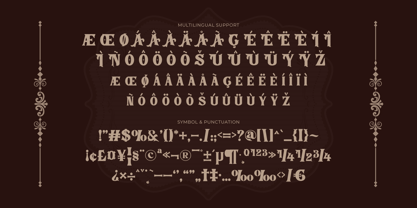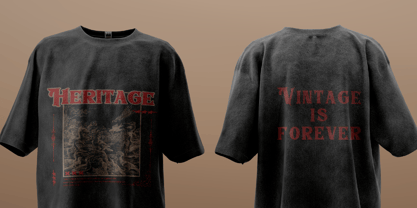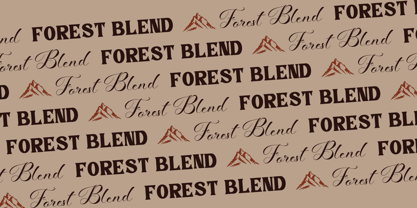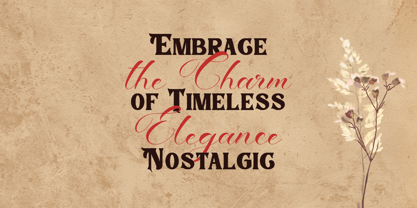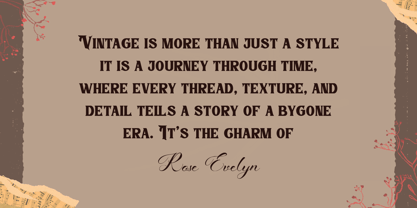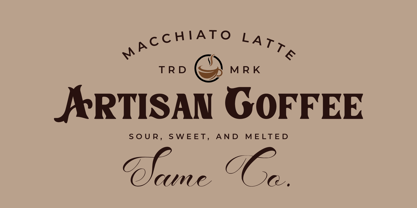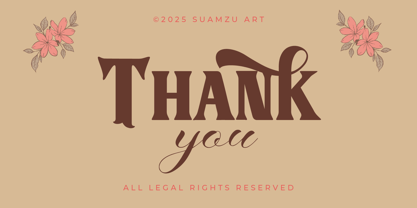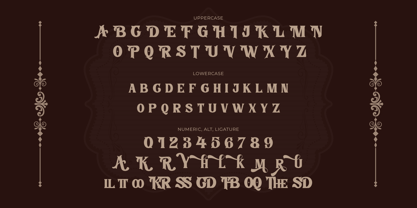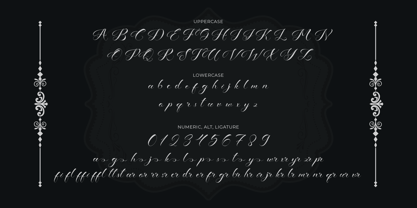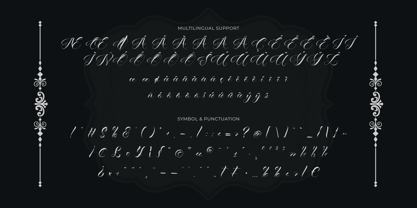
Kobler Sienna
by Suamzu Art
The Kobler Sienna Font Family was designed by Amrullah Medan, Amrullah and published by Suamzu Art. Kobler Sienna contains 2 styles and family package options.
Kobler Sienna 😎—a hand-drawn font duo with a perfect touch, combining classic vintage serif with graceful script. This combination creates a captivating visual harmony, bringing an elegant feel with a charming retro style. Each curve is designed to highlight a unique character that will enrich every design work you do.
Inspired by a timeless classic style, Kobler Sienna is designed to be versatile and easy to apply to various needs. Whether for an attention-grabbing headline, a strong slogan, or a book cover that arouses curiosity, this font gives a special touch that is unforgettable.
Not only that, this font is also perfect for greeting cards, postcards, creative products, stickers, and even stunning social media designs. Every stroke adds charm and makes every work more lively, full of character, and ready to leave a lasting impression.